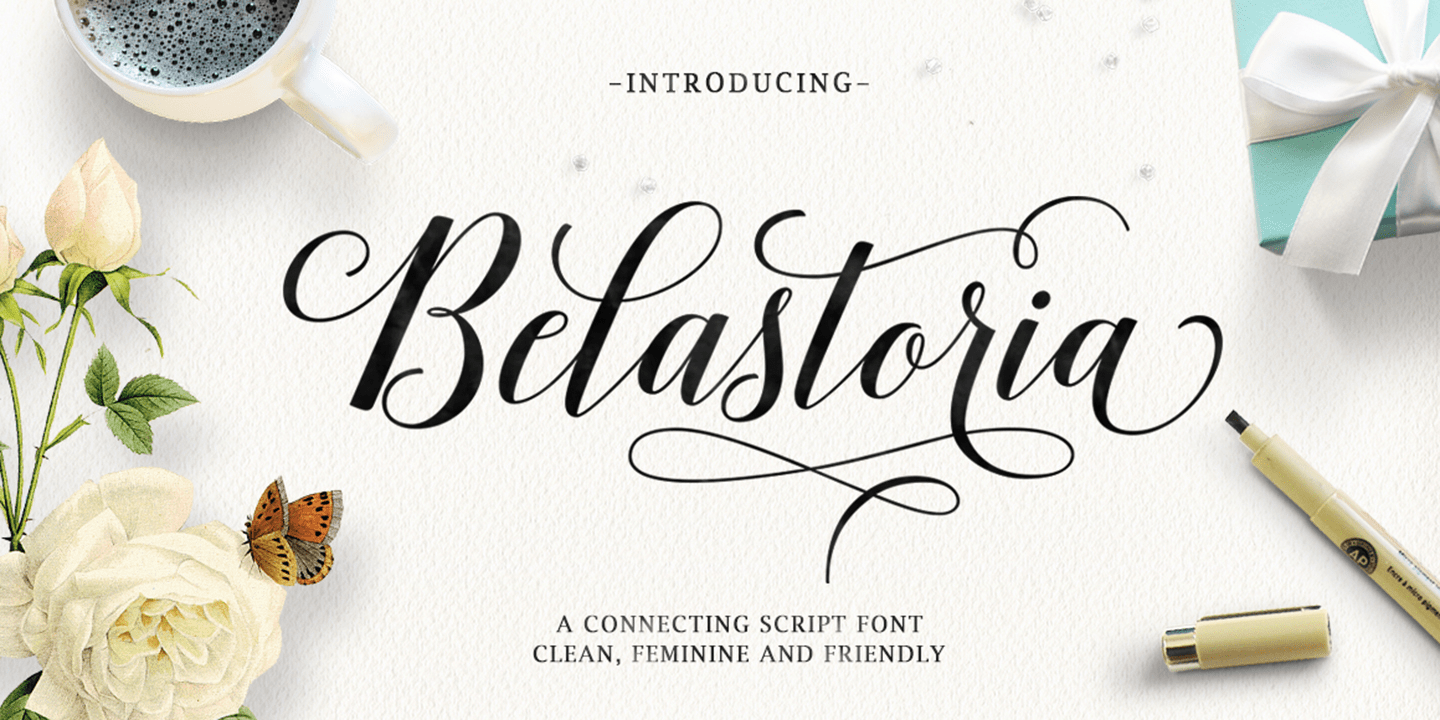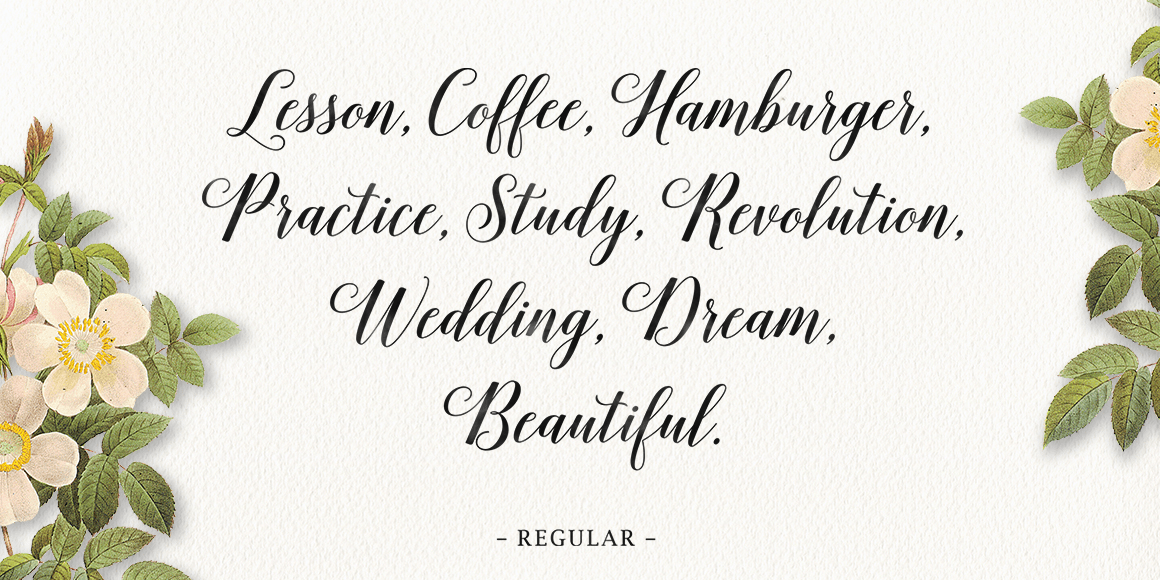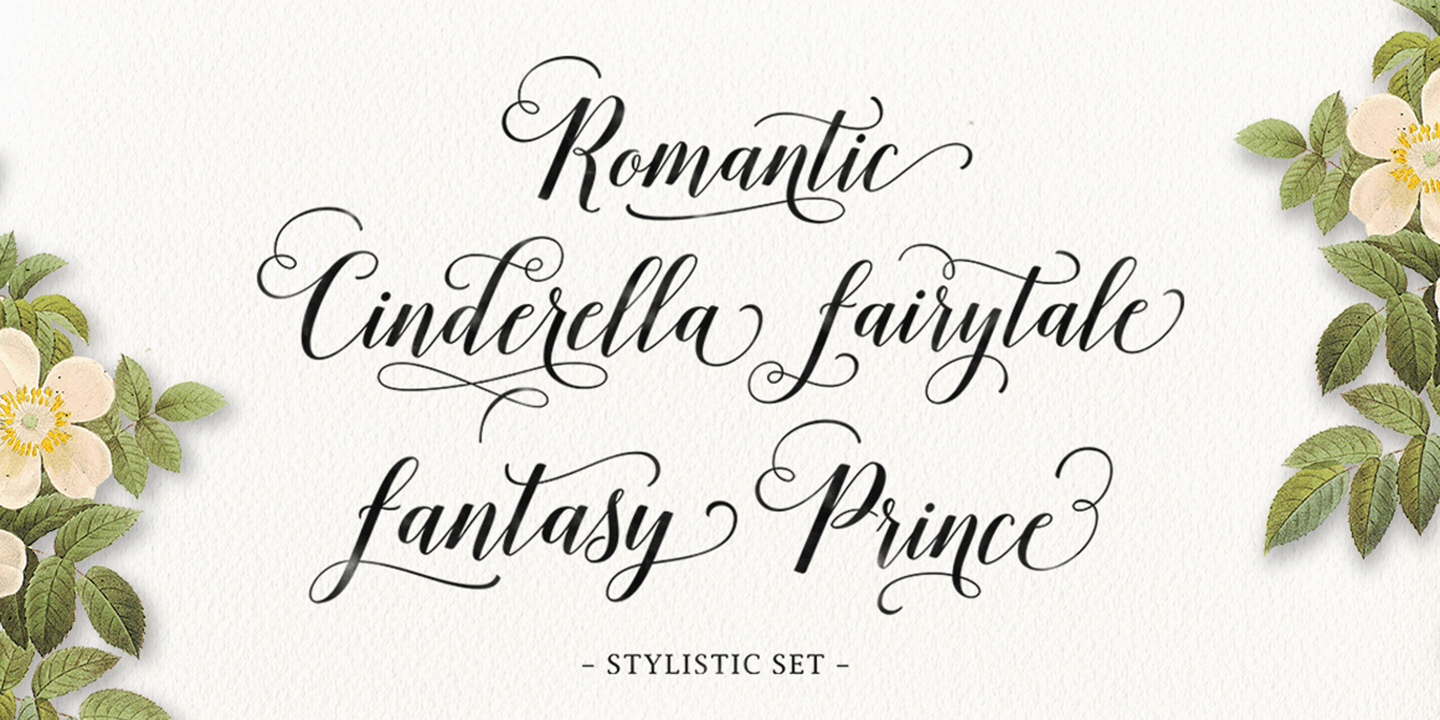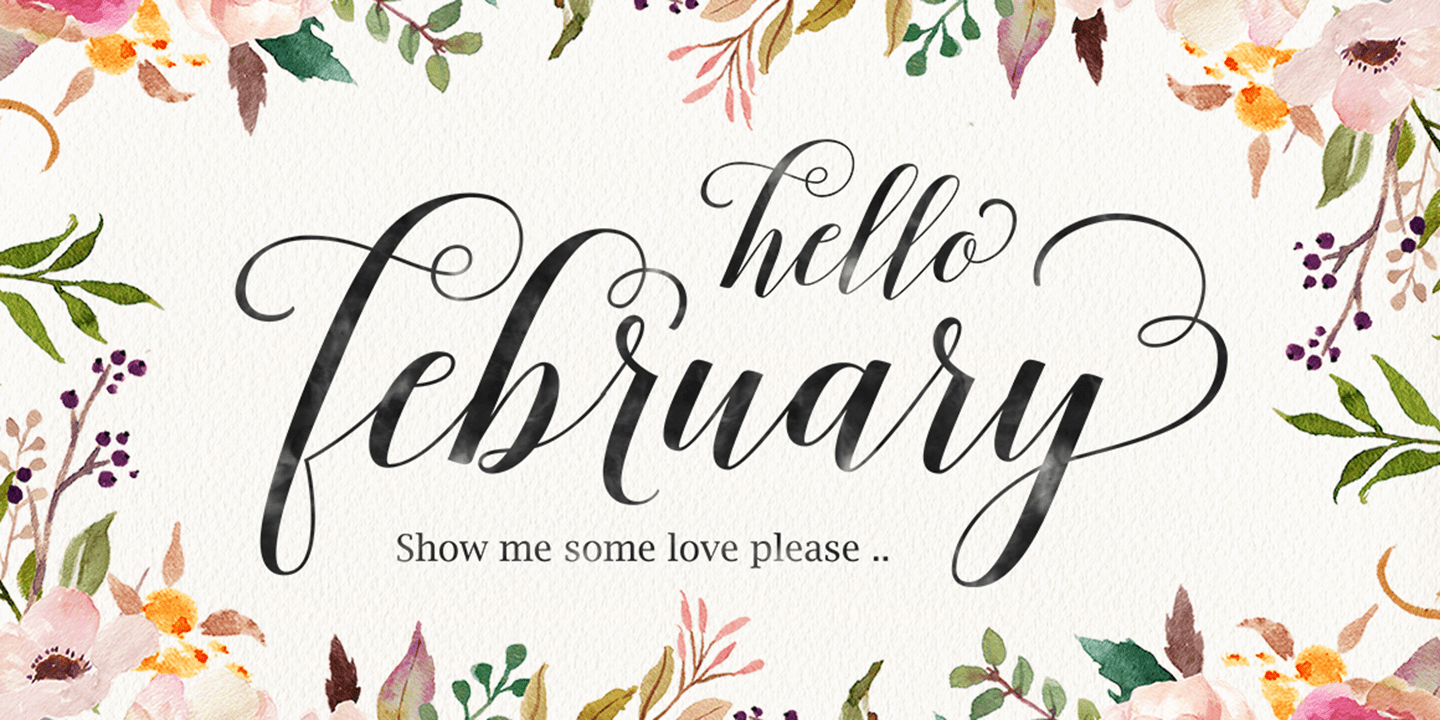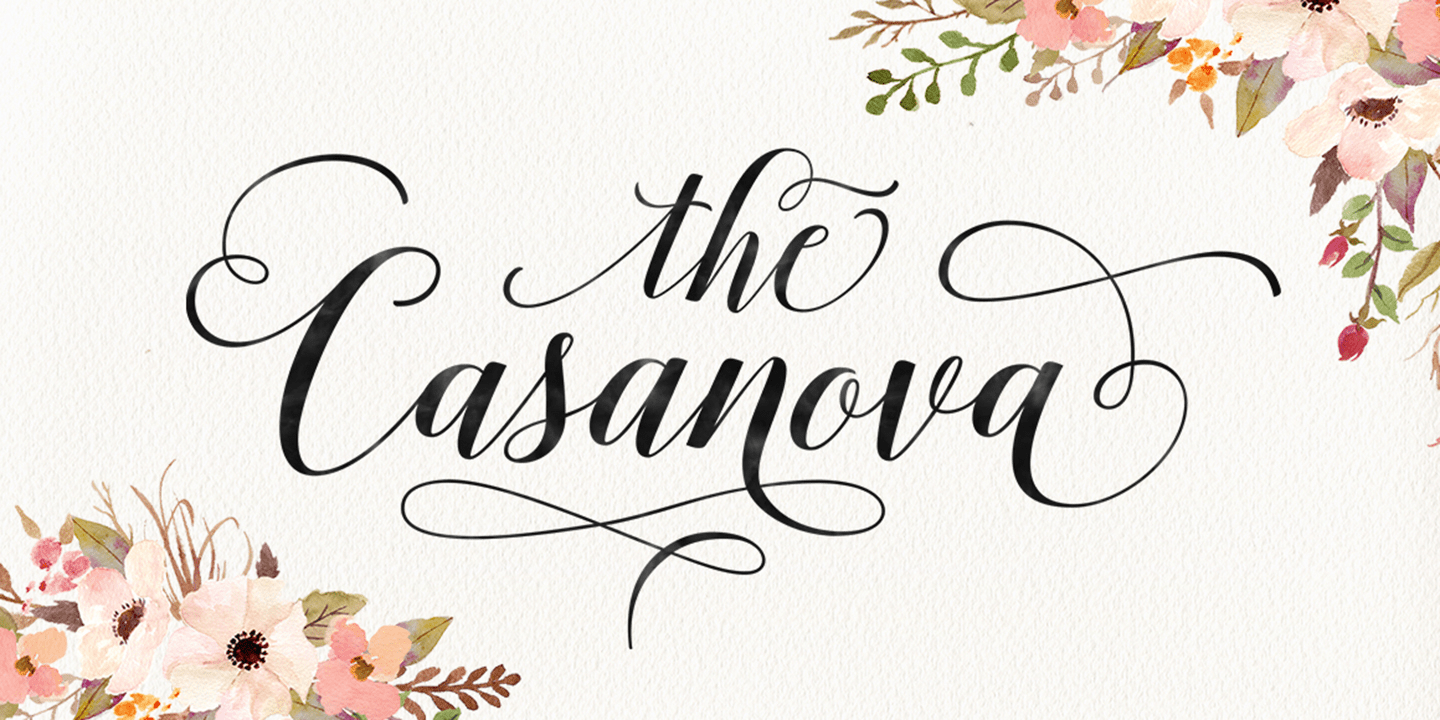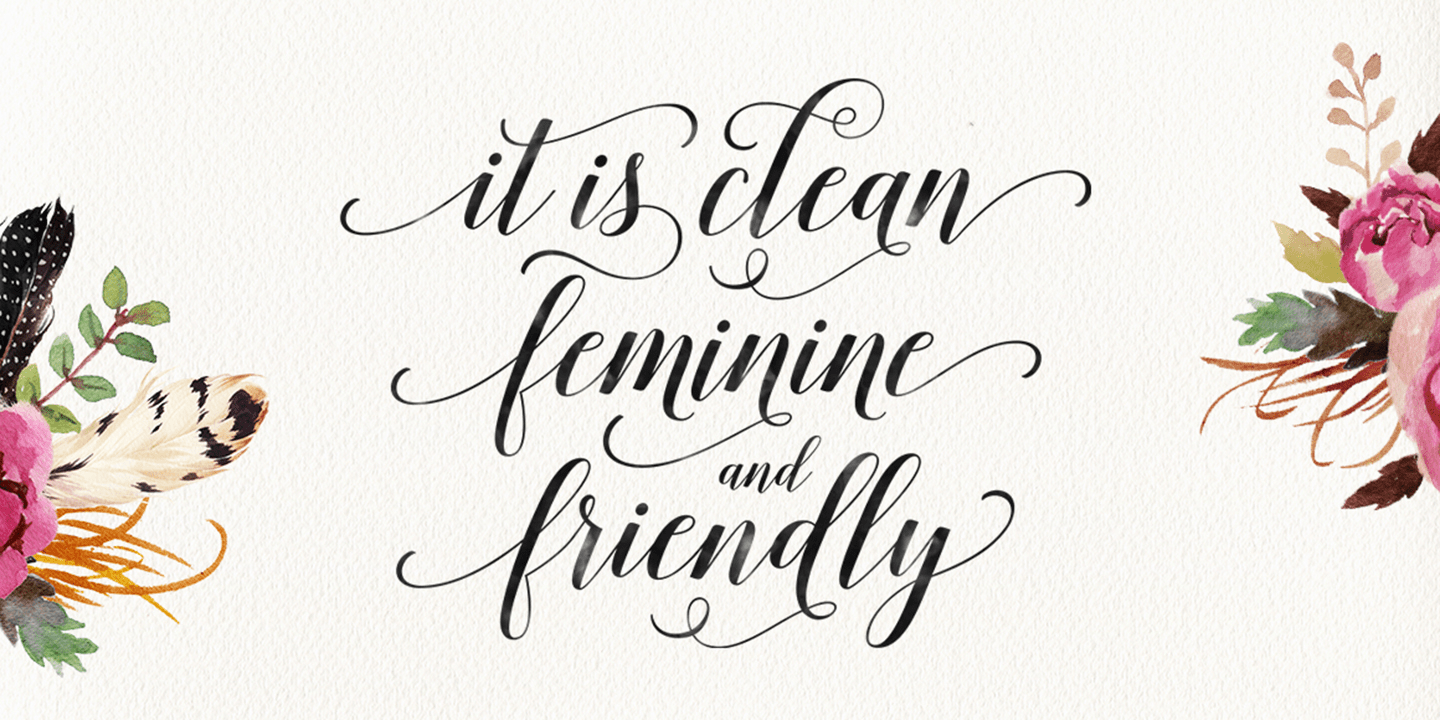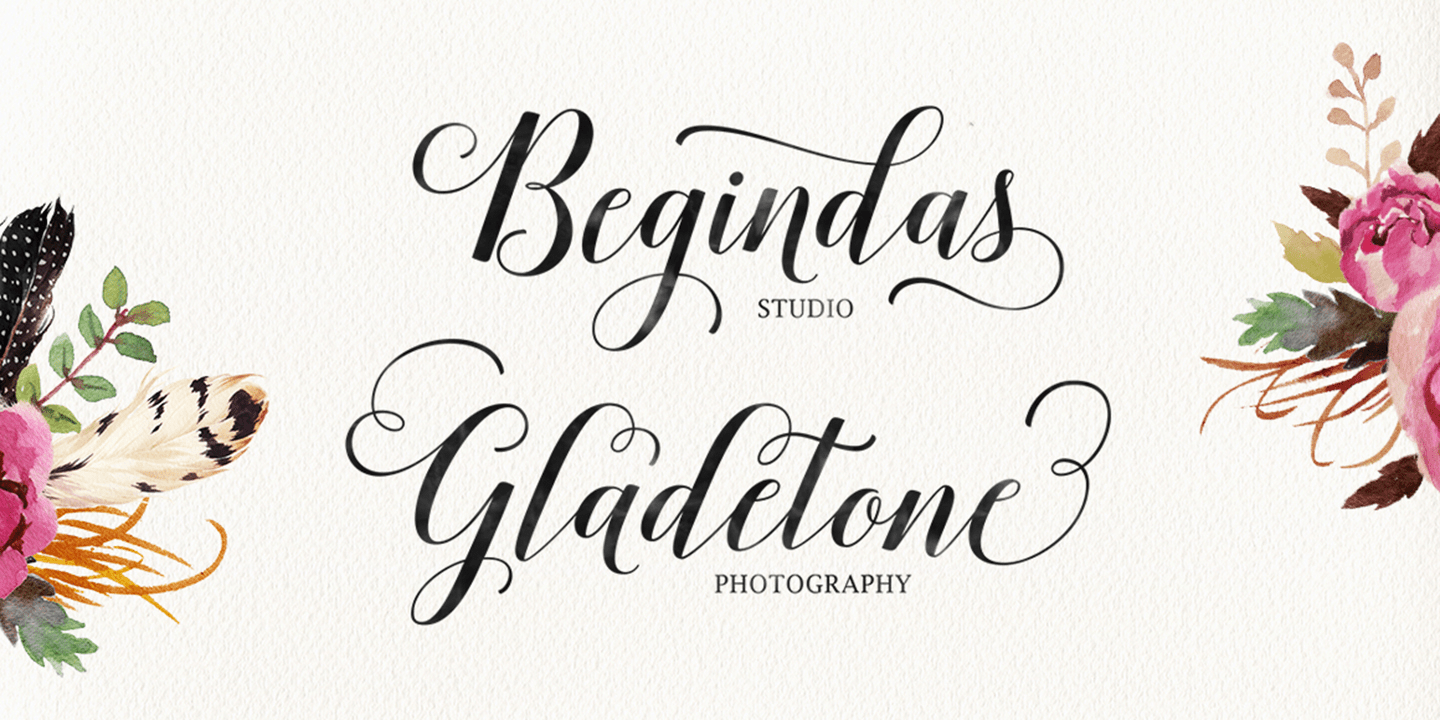
Belastoria
Belastoria is a connecting script with a dancing baseline, which is designed to convey elegance and style. It is clean, feminine and friendly. This font works perfectly for logos, magazines, menus, books for children, invitations, wedding / greeting cards, packaging, labels, t-shirt etc. All designs will have a wonderful homemade touch with Belastoria.
Belastoria has 565+ glyphs and 340+ alternates. It offers a variety of features such as ligatures, swashes, endings, and many early forms alternately. To unleash your creativity, this font also supports multiple languages.